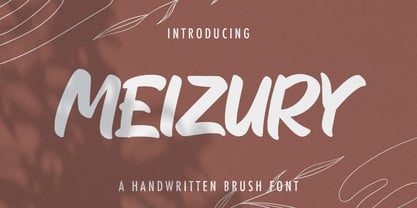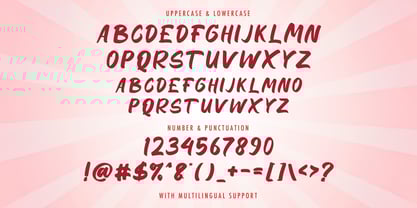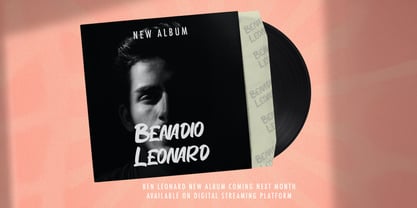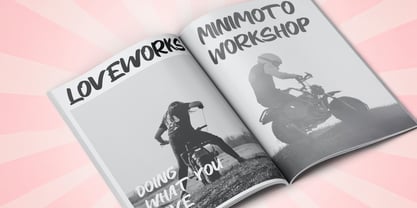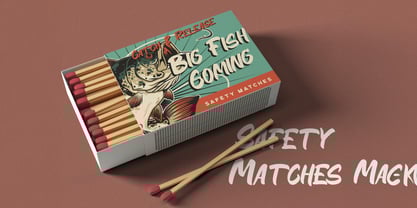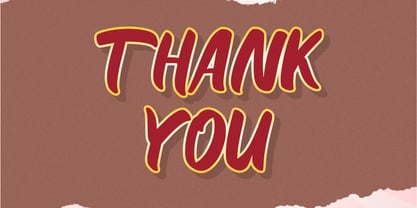
The Meizury Font Family was designed by Virgiawan Listanto and published by Stringlabs Creative Studio. Meizury contains 1 styles. More about this family
MEIZURY is a bold and stylish handwritten font that blends expressive strokes with a contemporary edge. With its free-flowing lines and energetic rhythm, this font brings a sense of creativity, motion, and personality to any design.